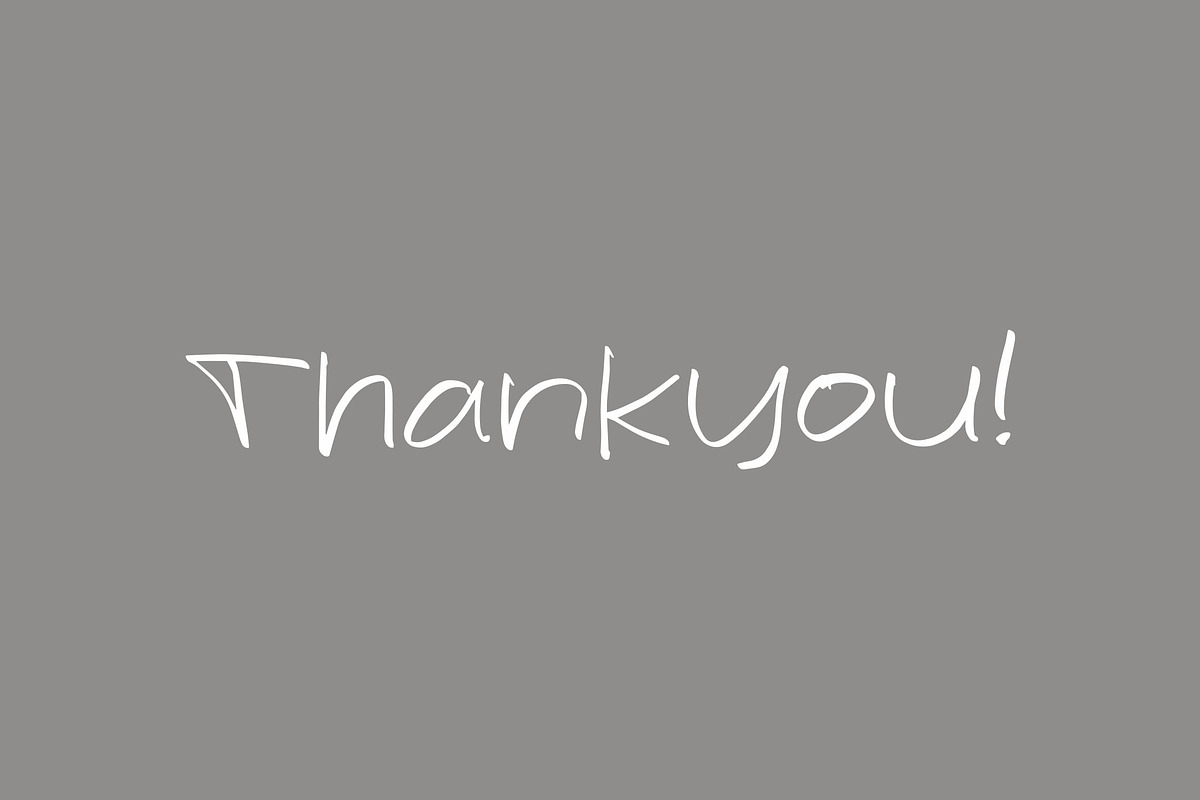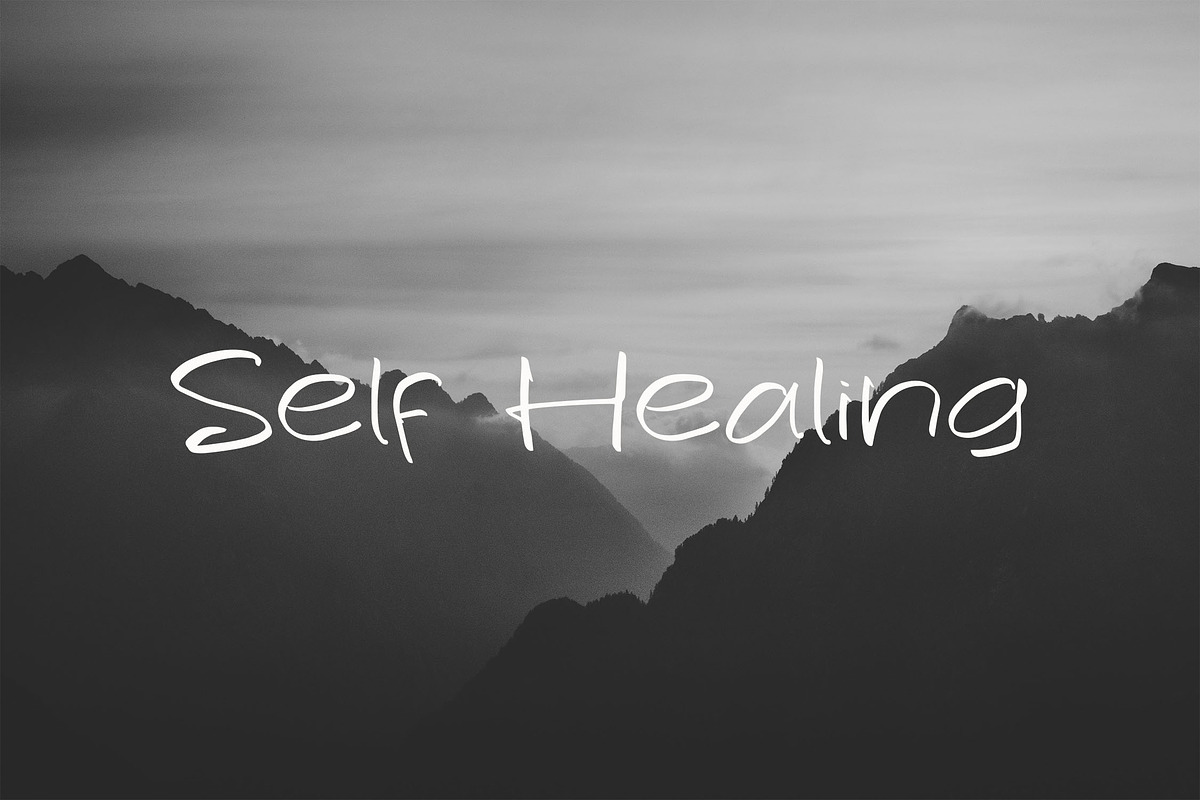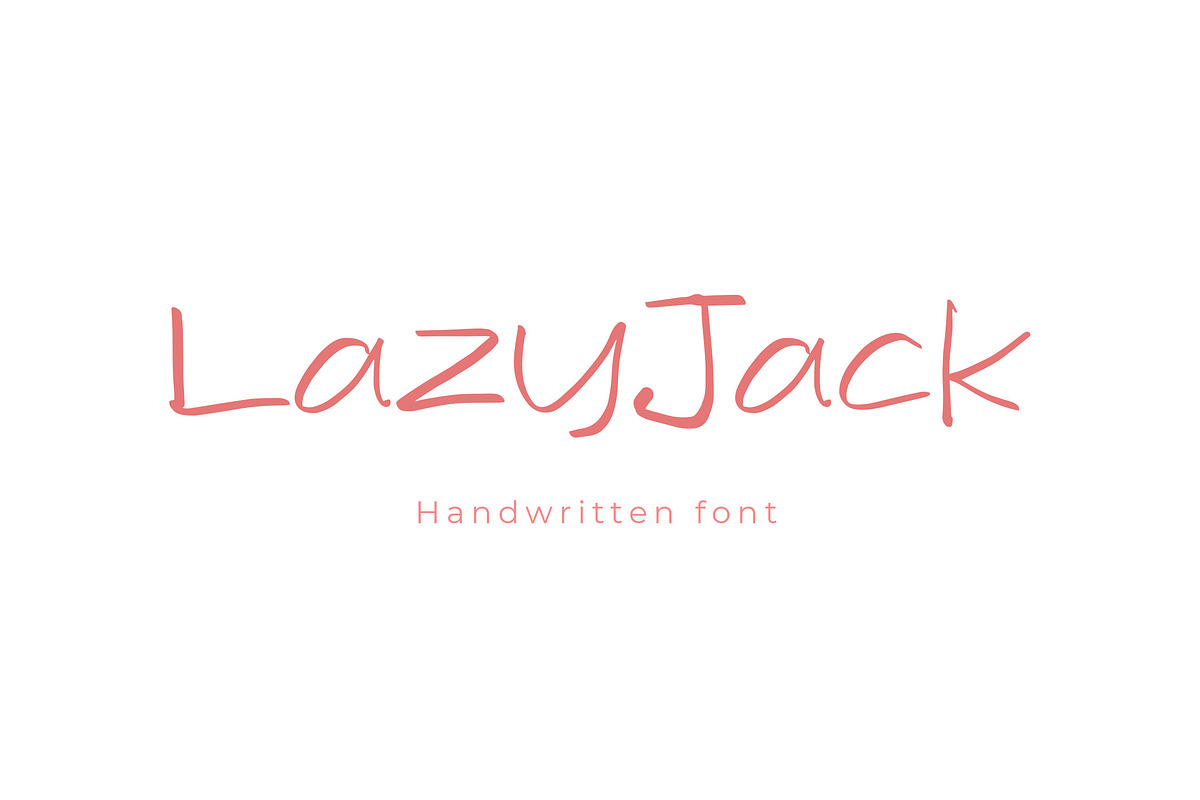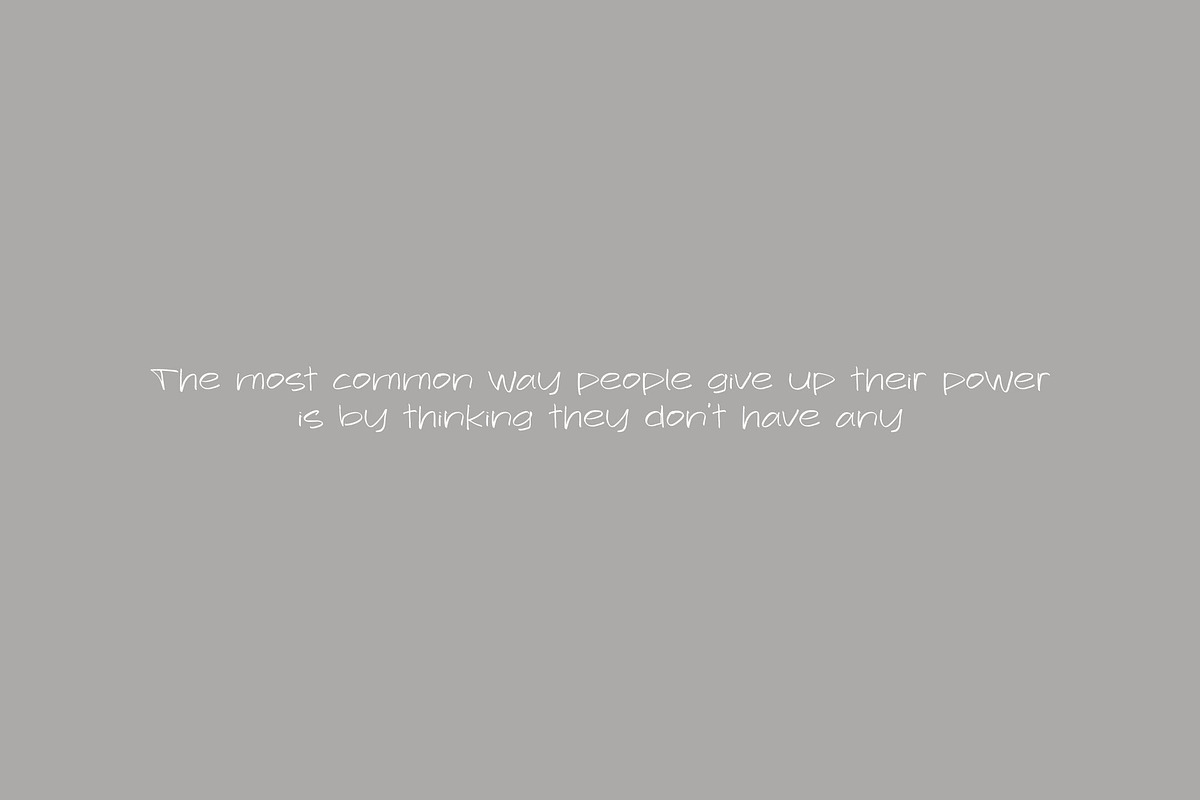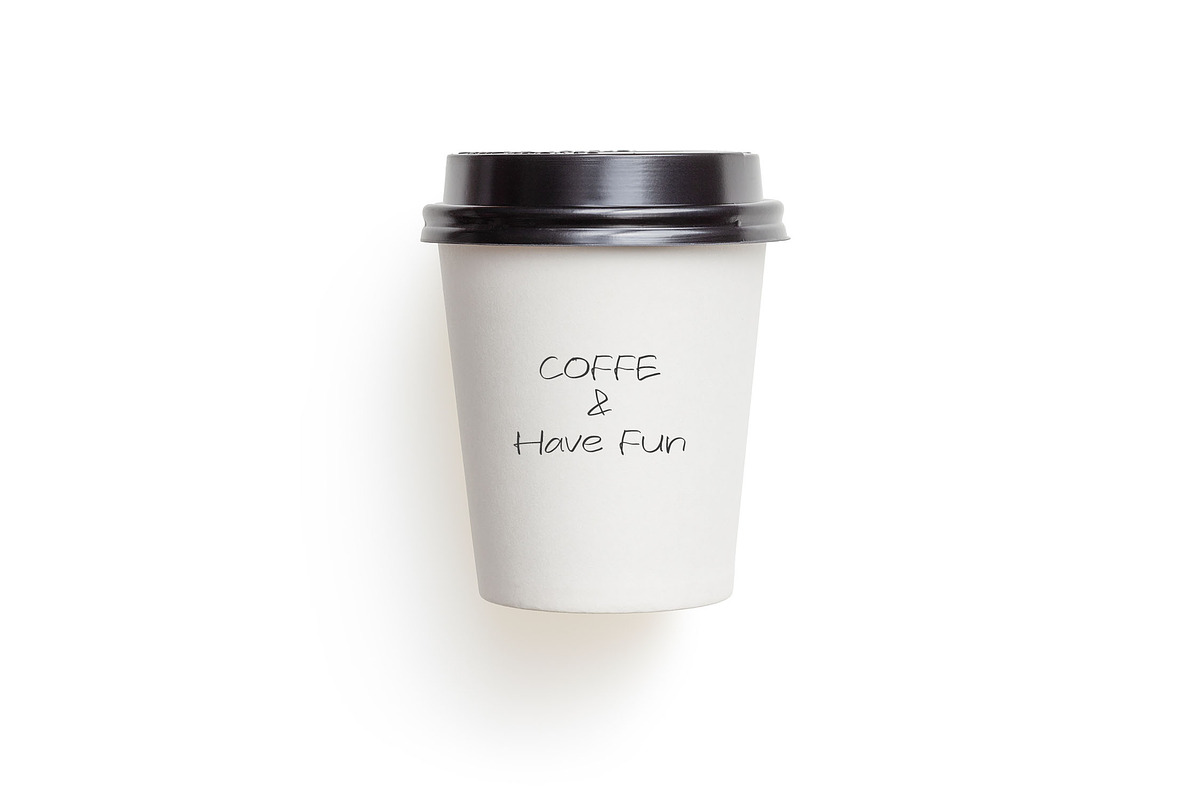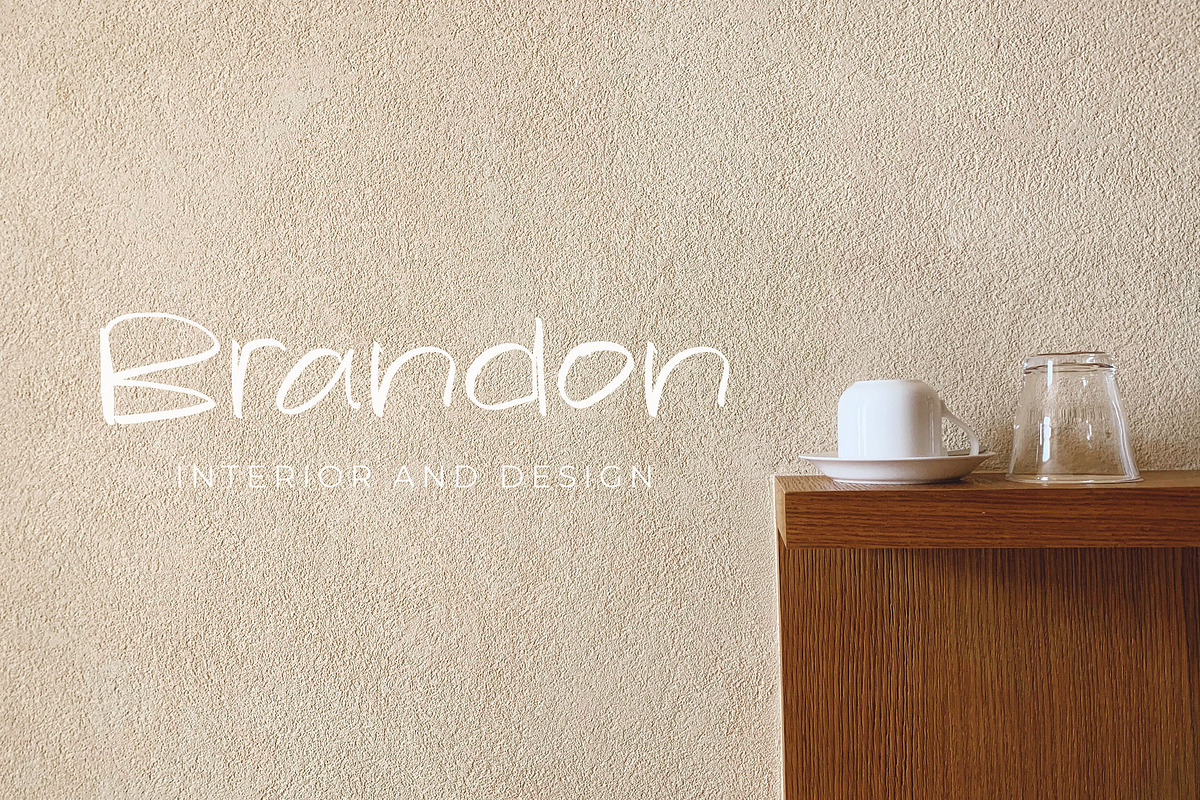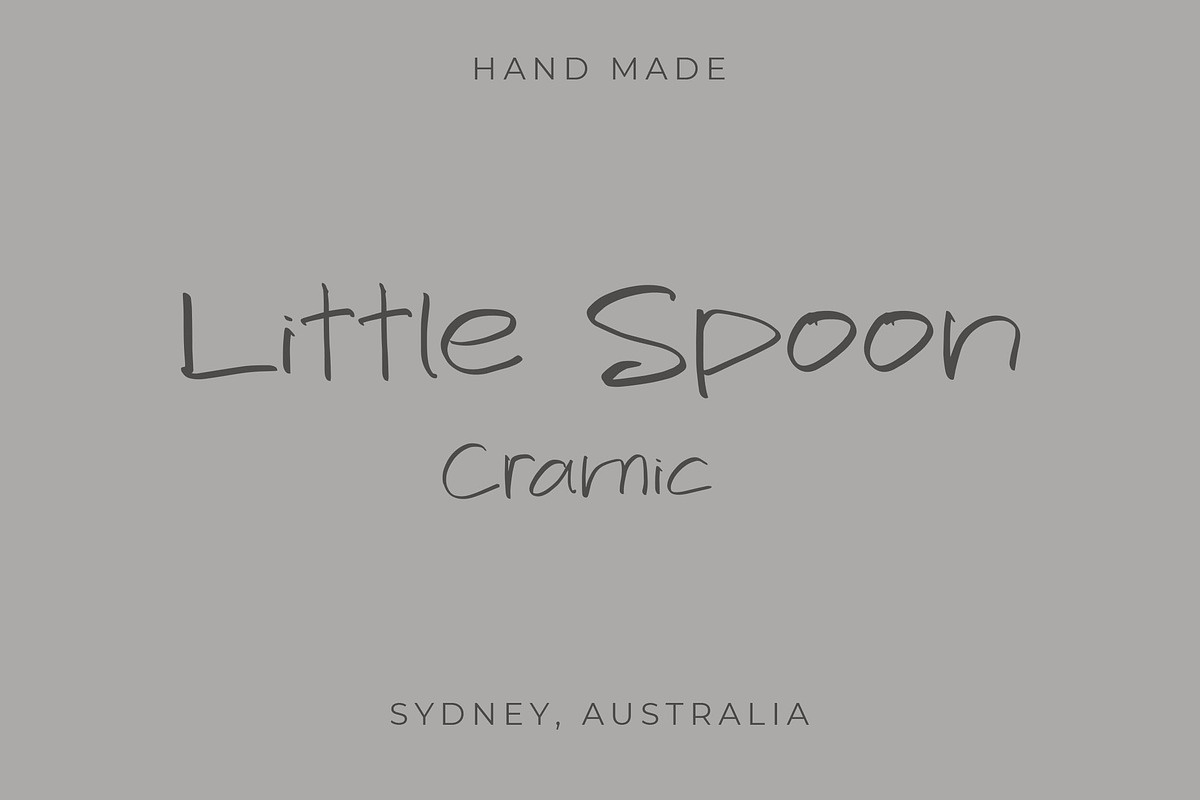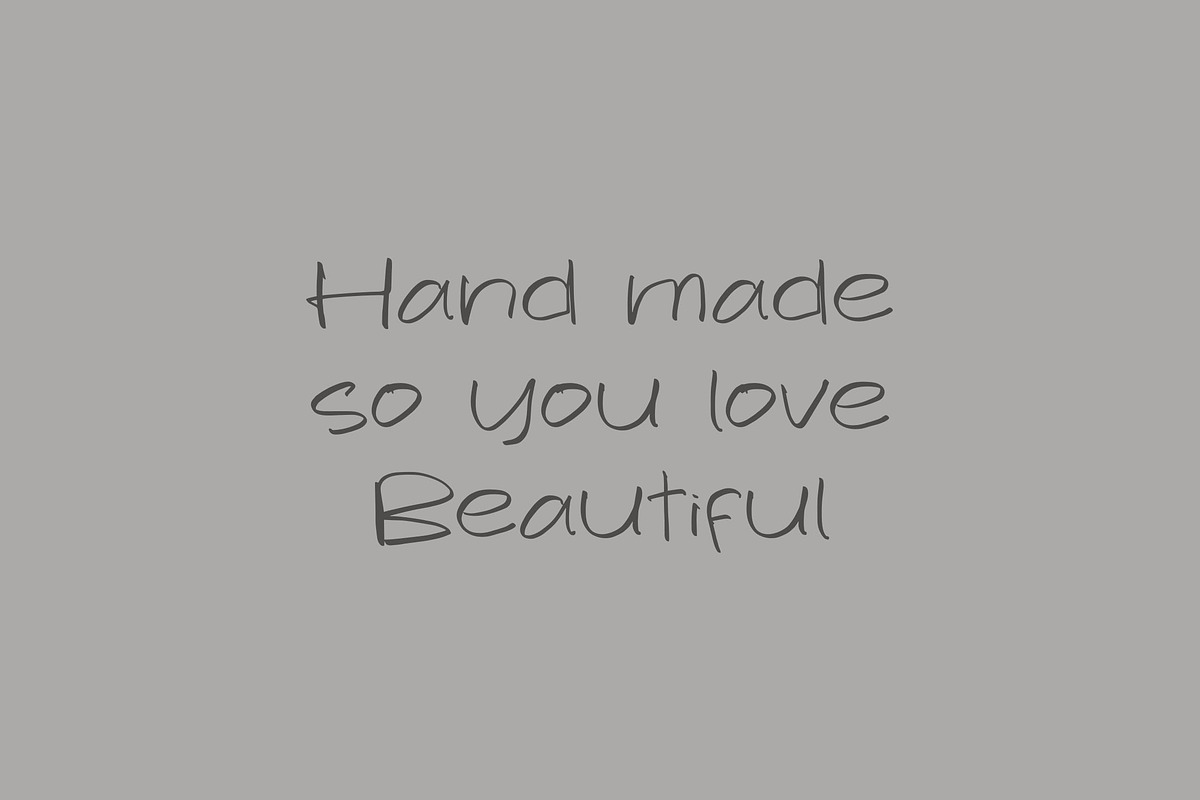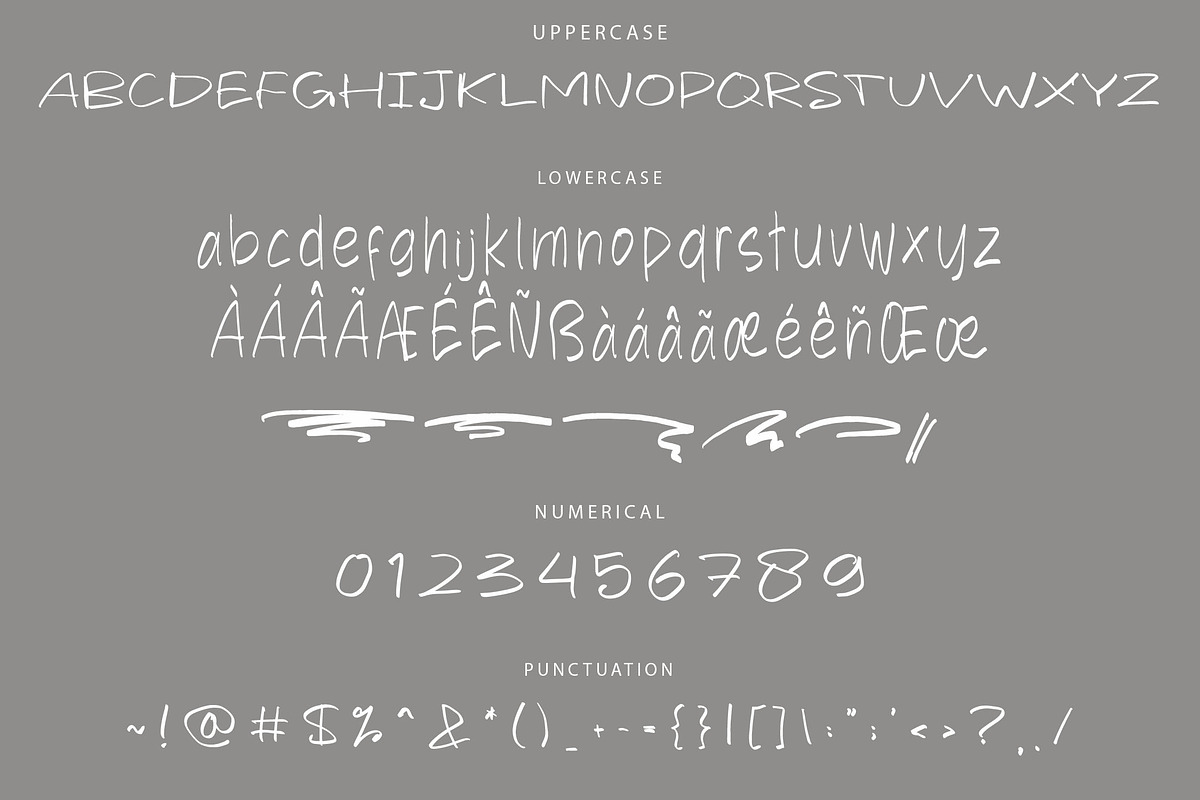
LazyJack Handwriting Font
LazyJack - Rough Handbrush Handwriting Font
LazyJack is a bold and expressive handwriting font with a rough handbrush style, designed to give your projects a raw, creative edge. Its unique character shapes make it perfect for enhancing the visual appeal of branding, packaging, posters, and more. LazyJack adds a distinct, handcrafted feel to any design.
- Includes ligatures, stylistic alternates, and swashes
- Supports multiple languages for versatile use